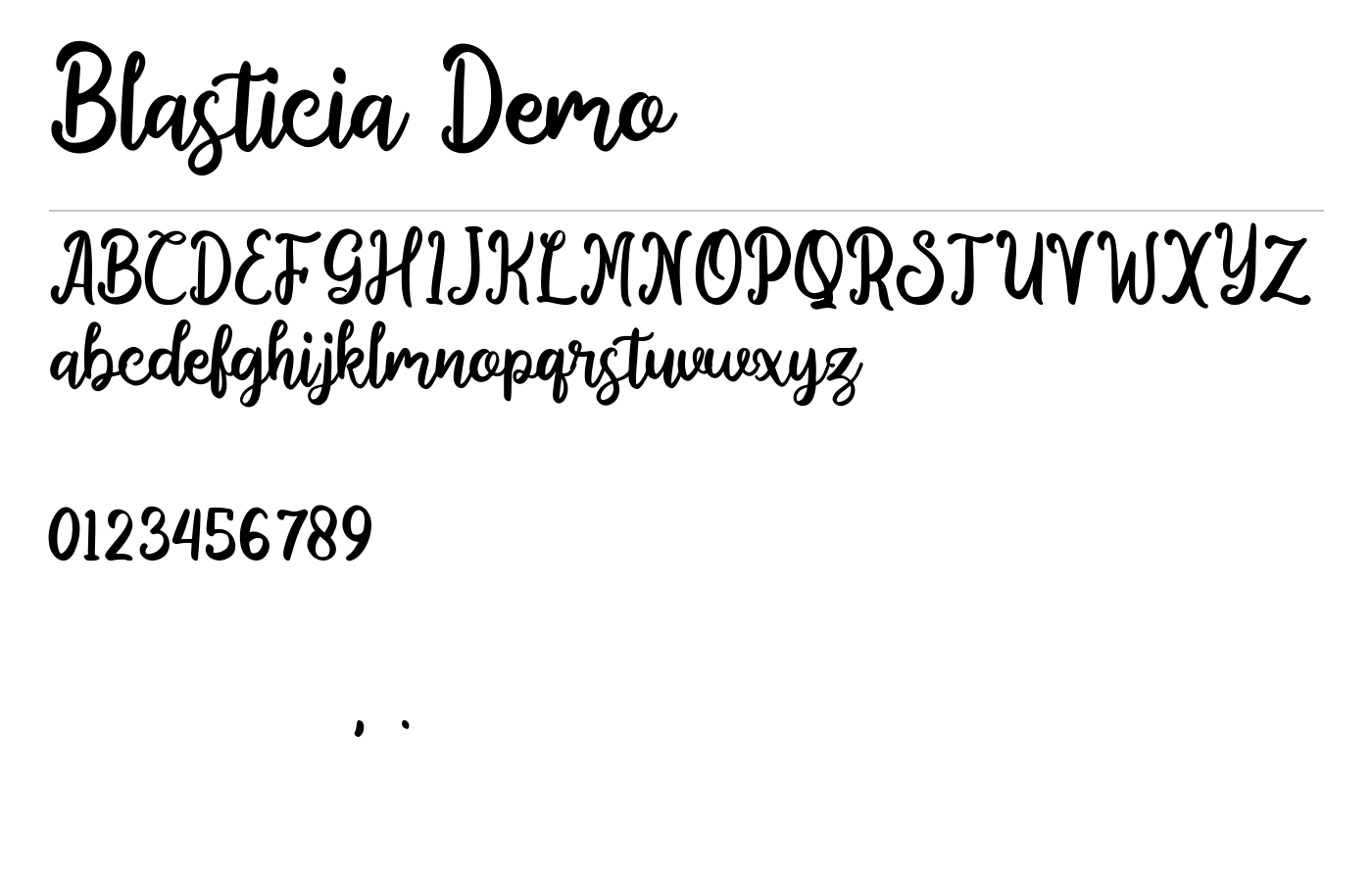
Blasticia Demo is a playful, casual script font featuring smooth, rounded letterforms that feel friendly and approachable. With its medium weight and fluid strokes, it works beautifully for creative projects, branding, and inviting headlines where a warm, personal touch is desired. This font is perfect for adding a charming, handwritten style to invitations, logos, and social media graphics.
Blasticia Demo Font
About Blasticia Demo Font
| Font family | Blasticia Demo Font |
| Designer | Forberas Club |